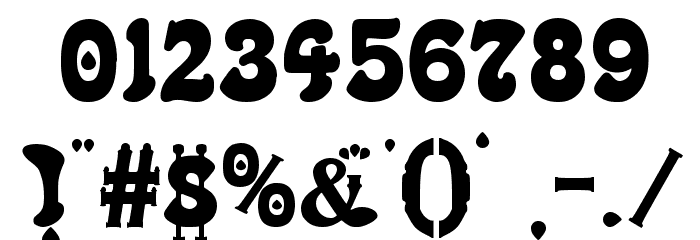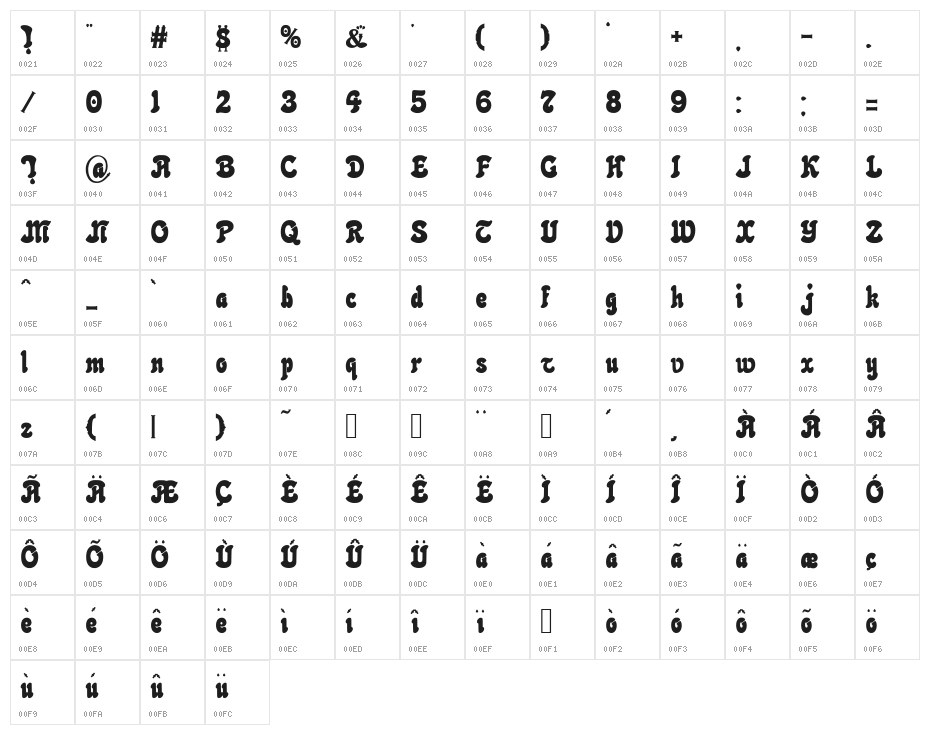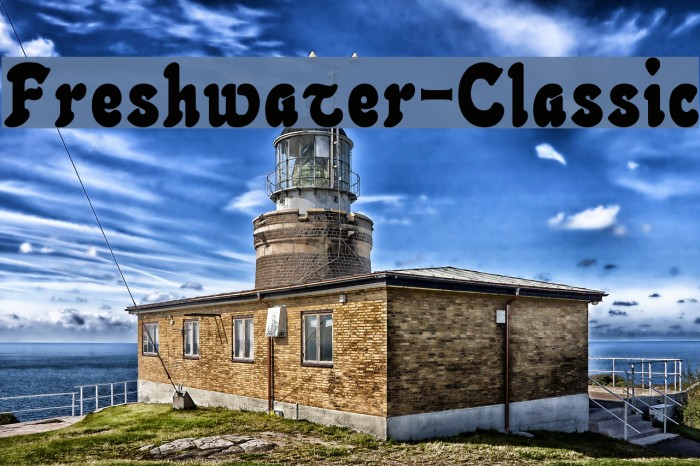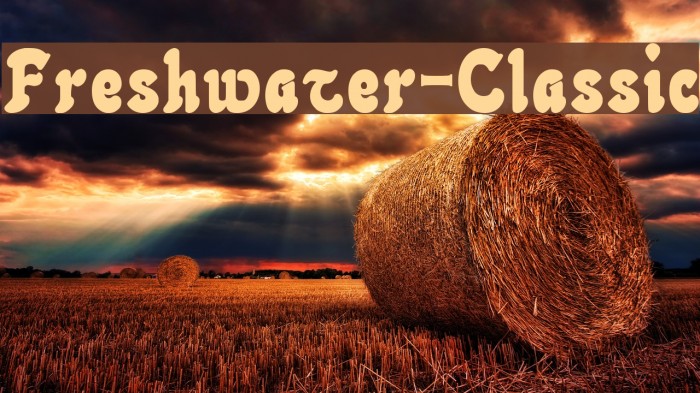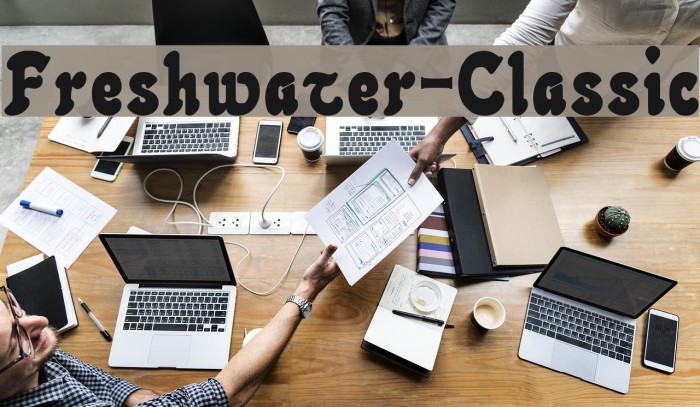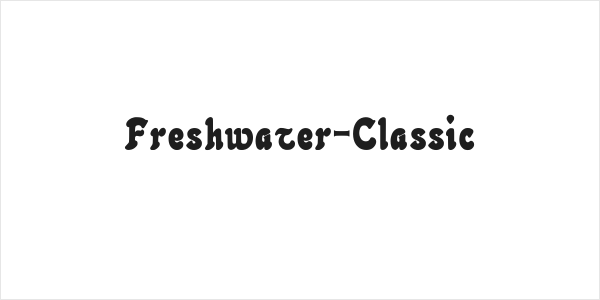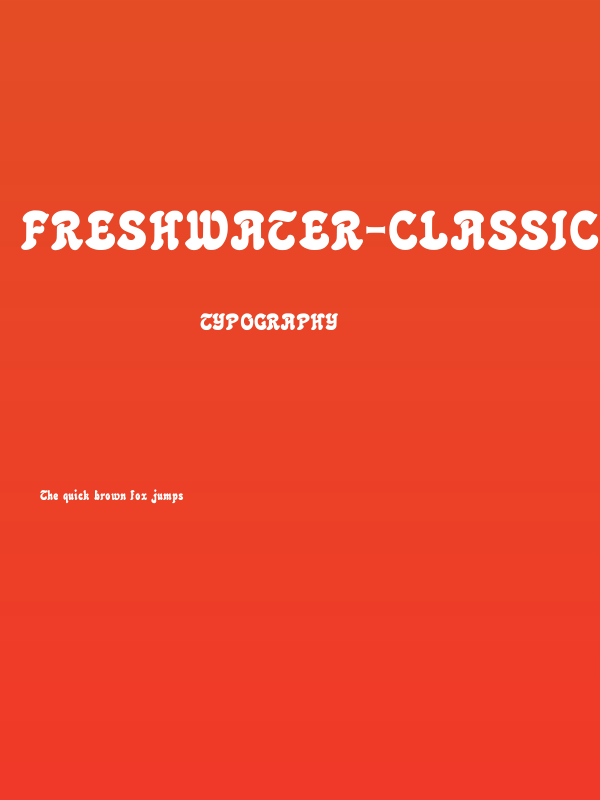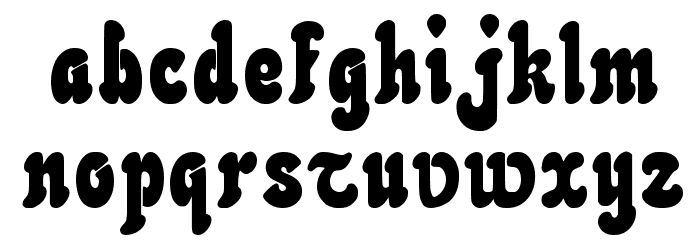
Freshwater-Classic Font
Freshwater-Classic Description
This font features a bold and playful style with rounded edges and a slightly whimsical appearance. The characters are thick and have a uniform stroke width, giving them a strong presence. The uppercase letters are particularly distinctive, with unique curves and flourishes that add character. The lowercase letters maintain a consistent style, complementing the uppercase with a similar boldness. Numbers and special characters are designed to match the overall aesthetic, ensuring a cohesive look across all text. The font's design is reminiscent of vintage signage, making it ideal for projects that require a touch of nostalgia or a bold statement.
| Proposed Projects | Ideal for retro-themed designs, posters, logos, and branding that require a bold and distinctive look. |